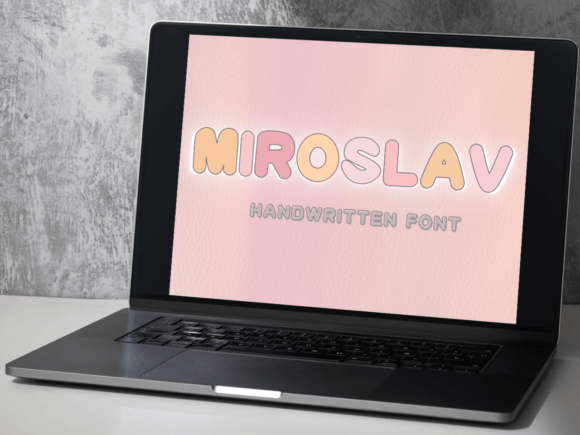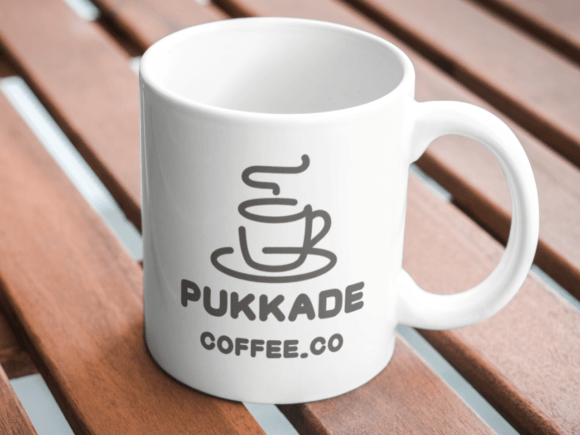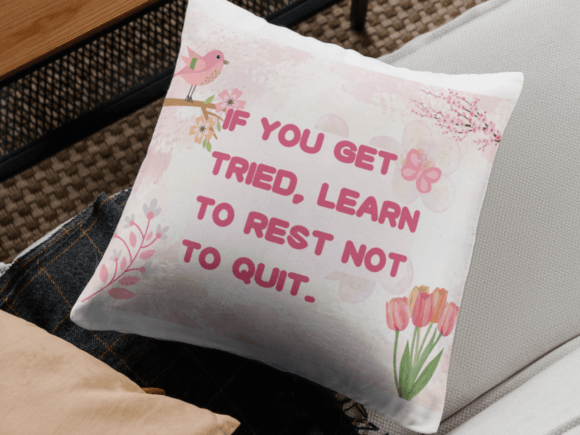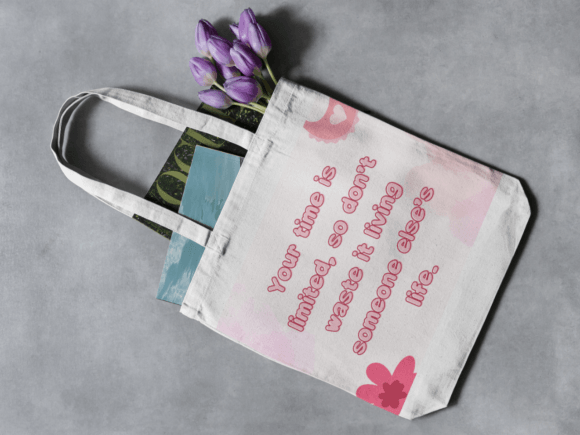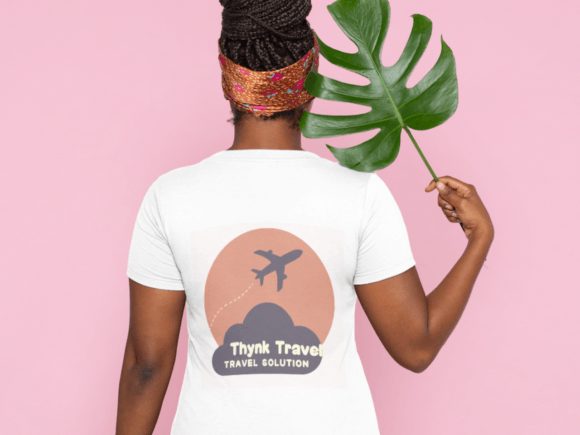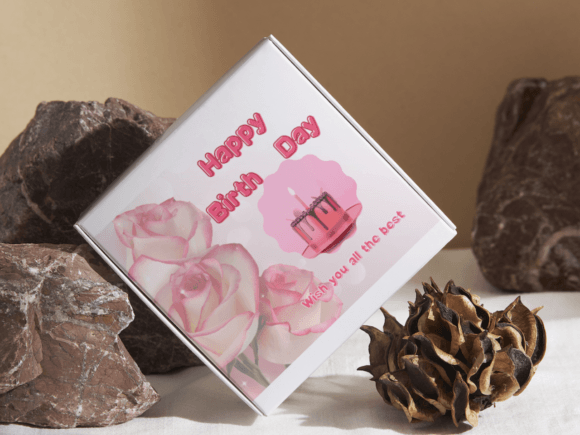
Introduction to Miroslav Font
Miroslav is a childish, easy-to-read display font that conveys impeccable friendliness.
Whether you’re using it for crafts, digital design, presentations, or making greeting cards, this font has the potential to become your favorite go-to font, no matter the occasion .